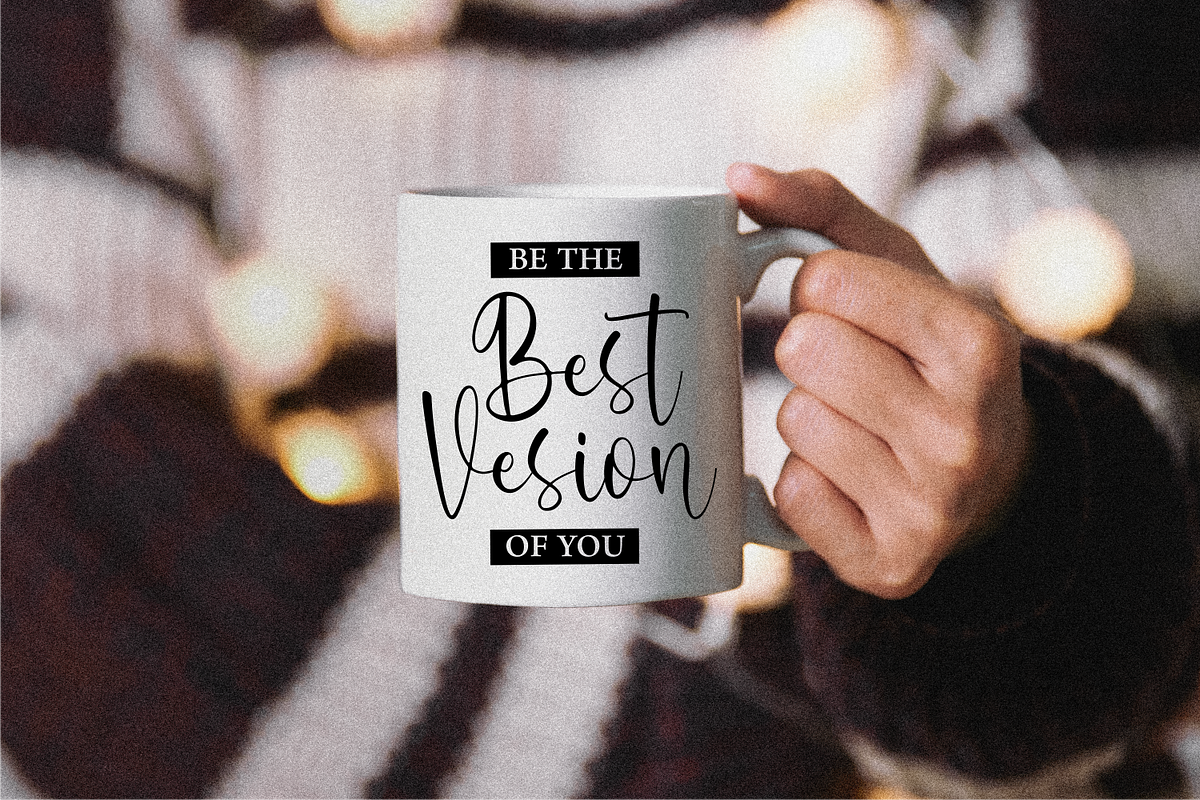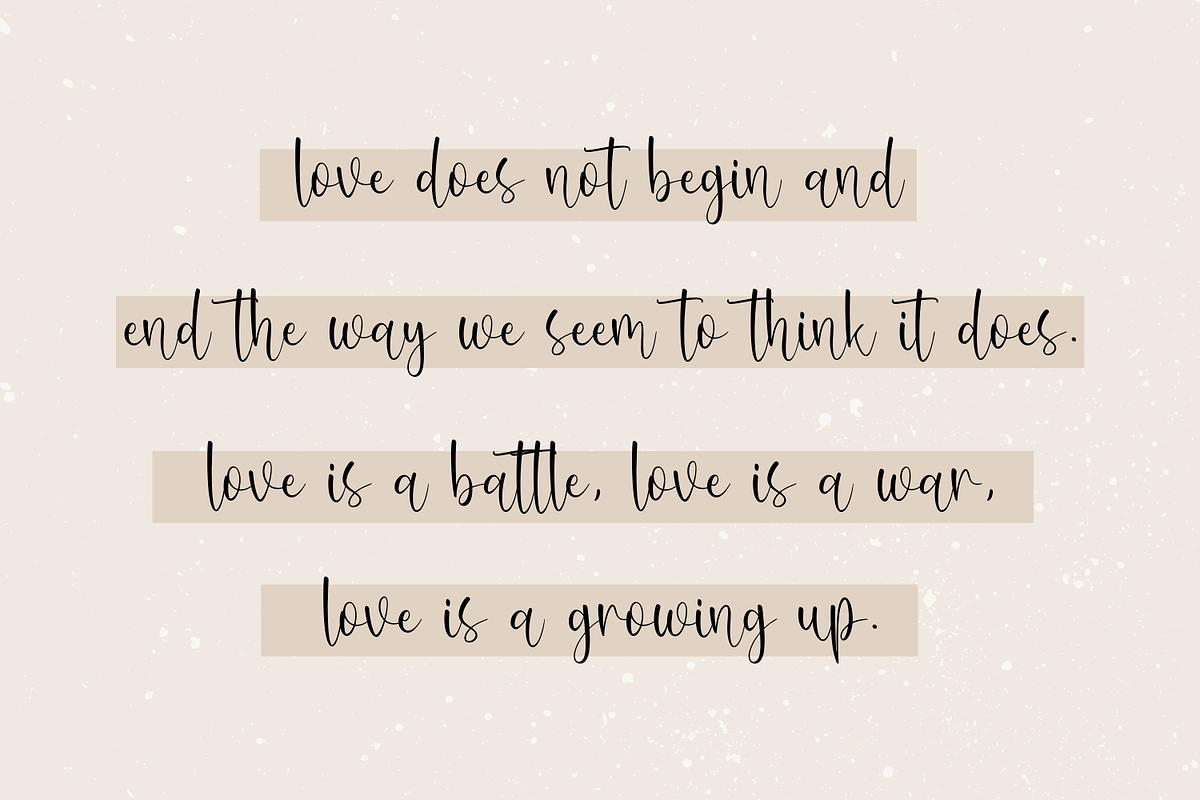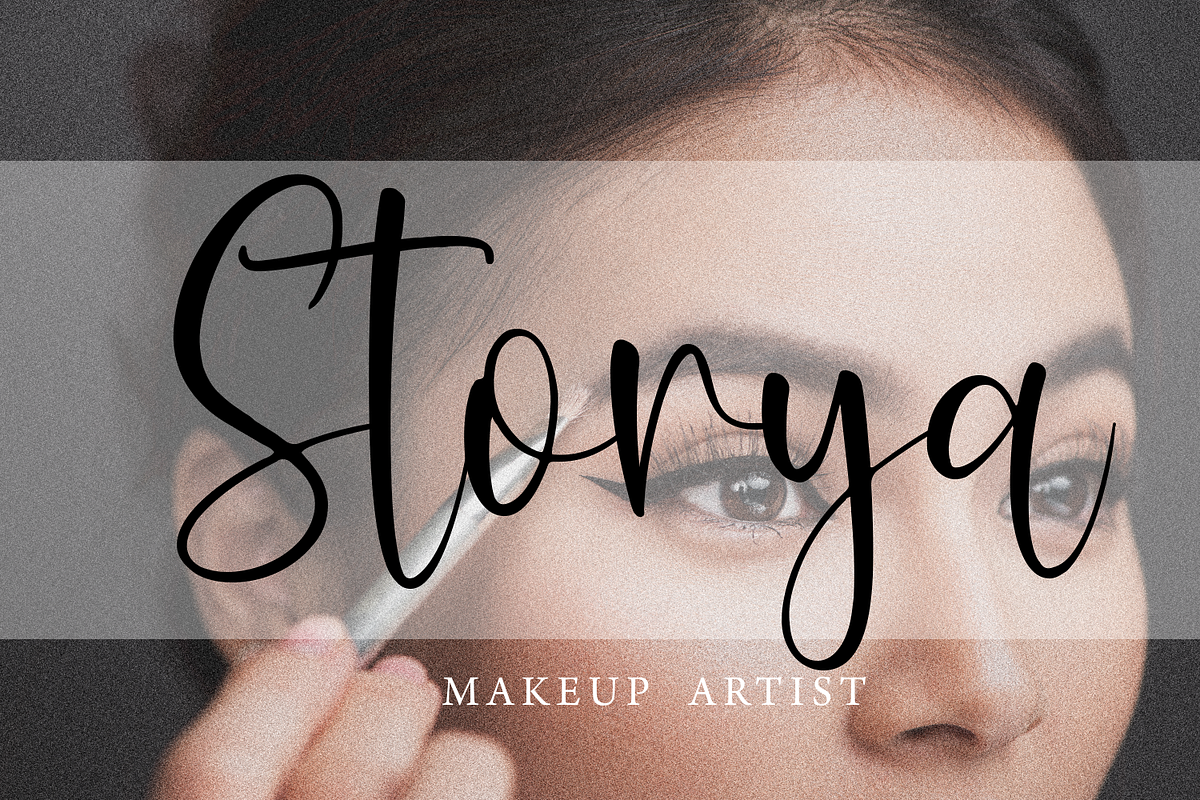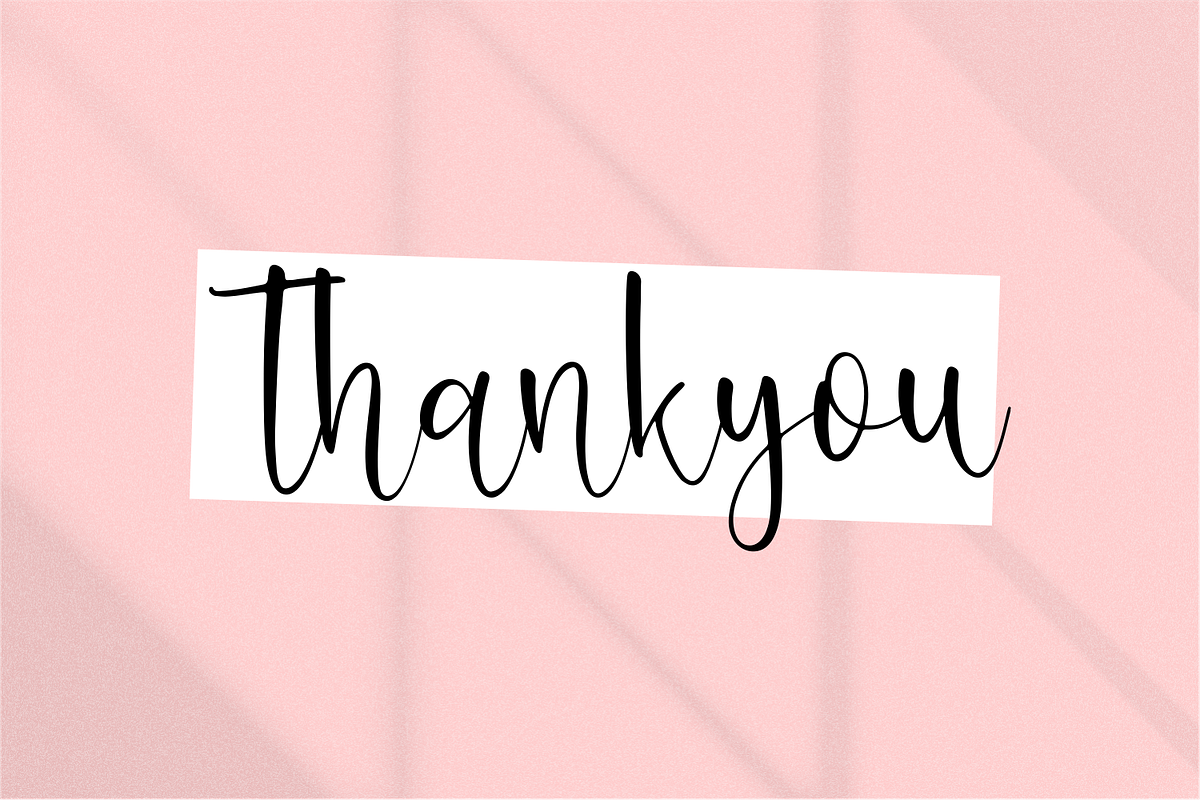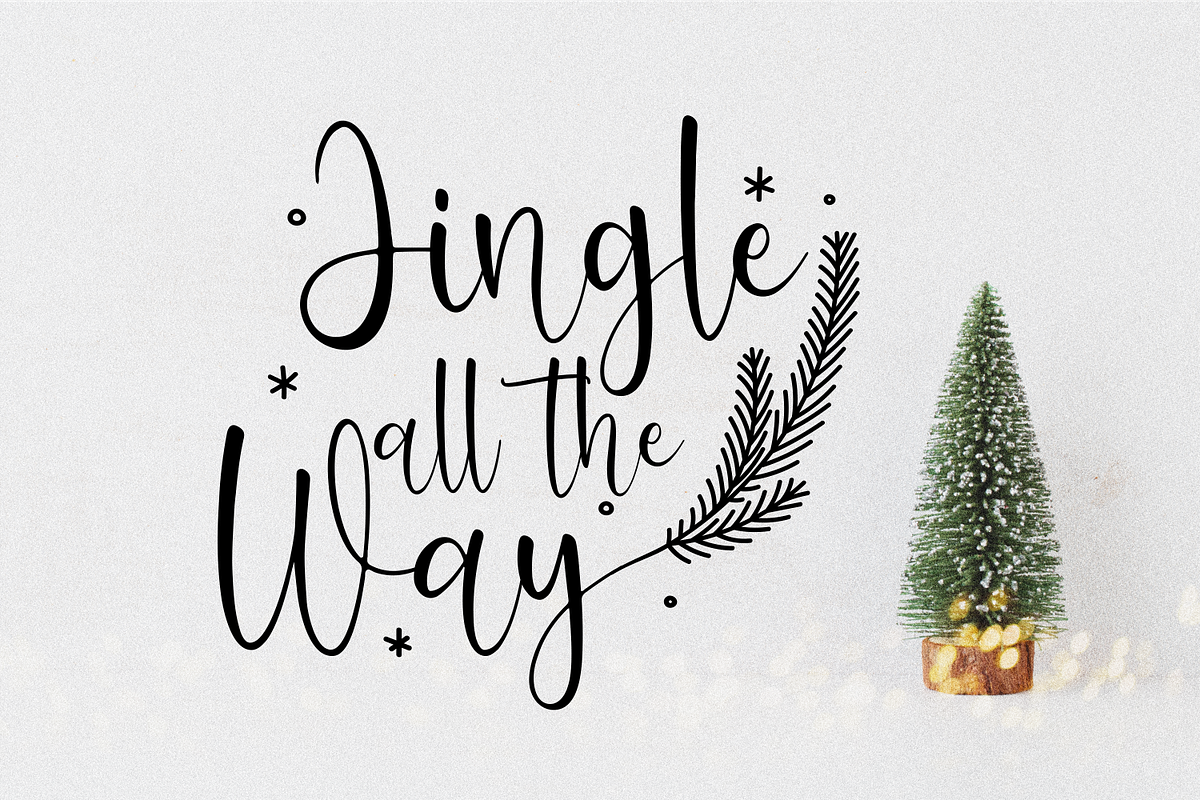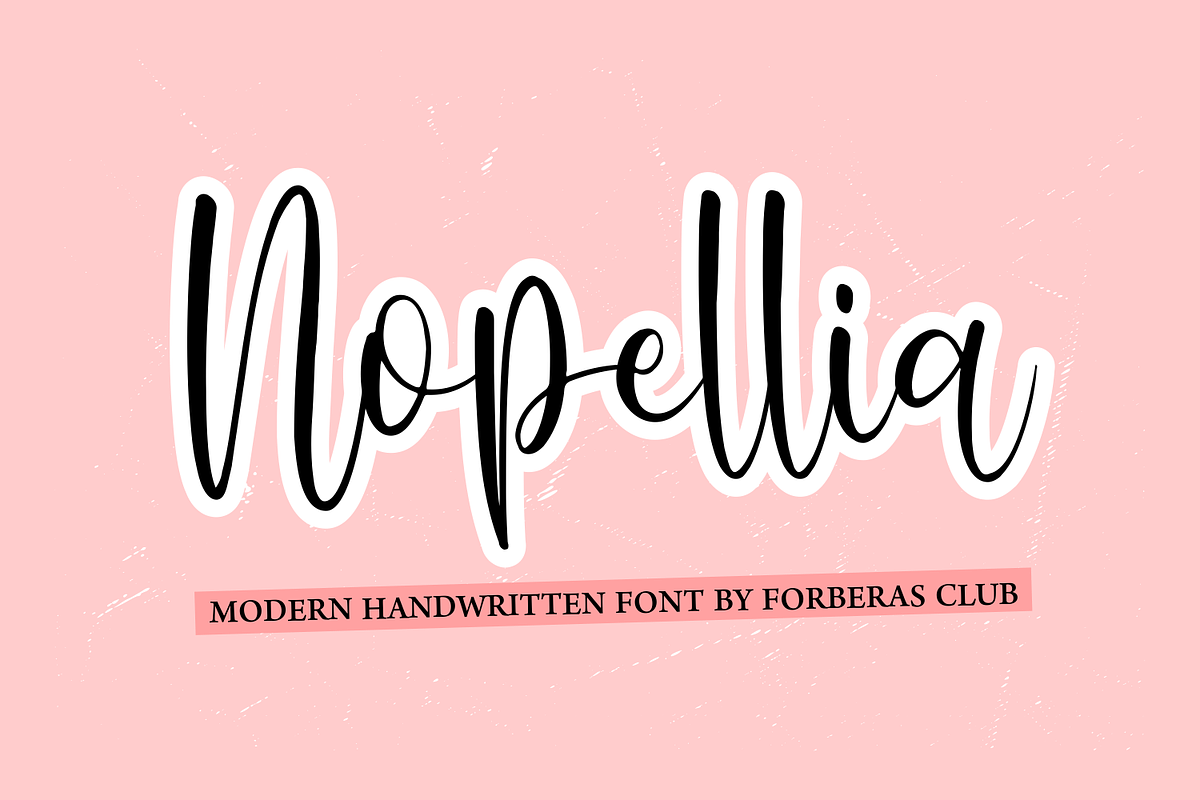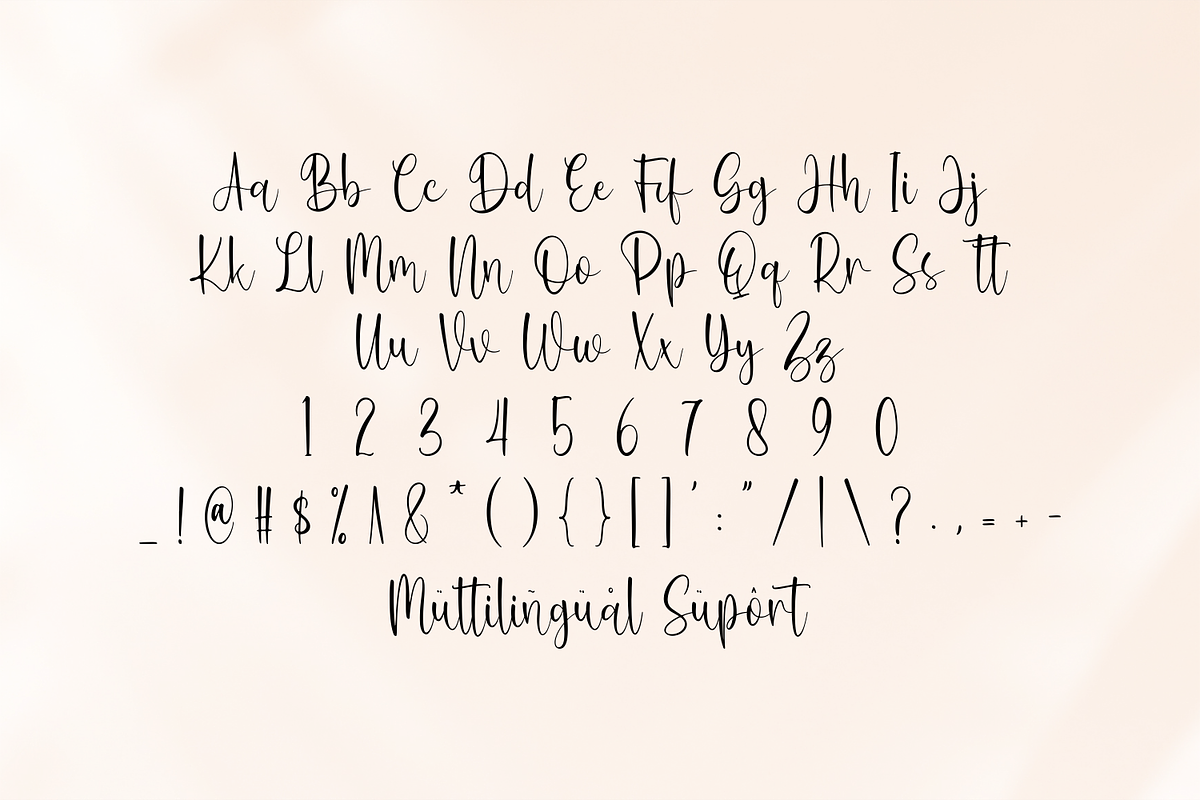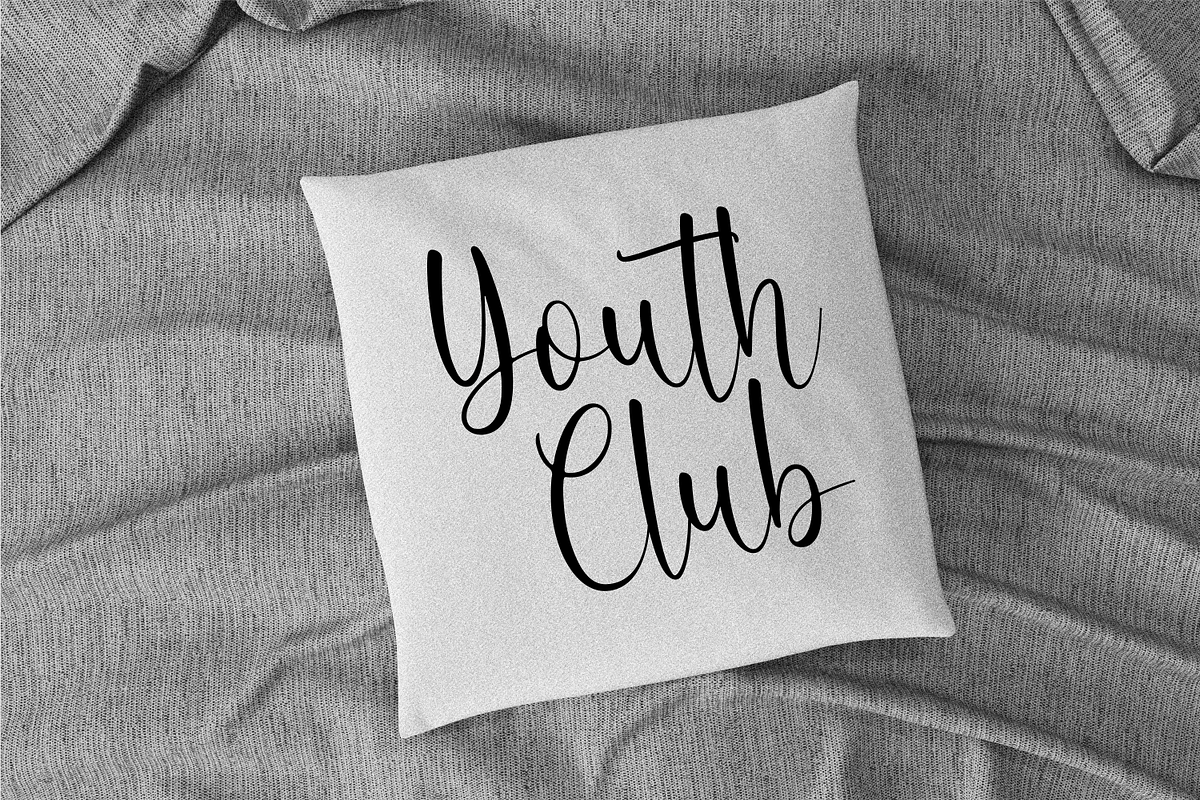
Nopellia
Introducing Nopellia by Forberas Club
Nopellia is a Handwritten Script font that will make your designs look classic, Farmhouse, Boho, and Feminine. It is a great font for events, Wedding Project, fashion, apparel projects, signature, album covers, logos, branding, magazines, social media posts, advertisements, but it also works great for other projects. Add it to your fonts’ library, and it will enhance your creativity!
Nopellia is best for:
- logos, branding, & Signatures.
- Flyers, Album cover, Magazine, & Advertisements.
- Website design , design blogs, & fashion.
- Quote graphics for social media. - and also it works great for other projects.